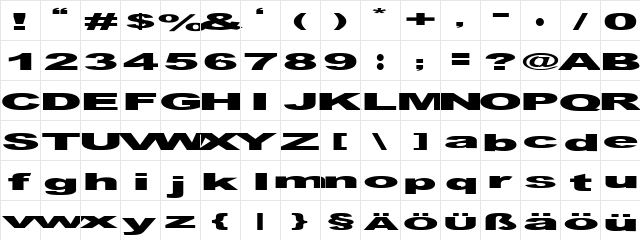
GF Vienna heavy Heavy
Design Context for GF Vienna heavy Typeface
GF Vienna heavy offers clean, dependable letterforms without strong stylistic allegiance, making it a practical choice for designers who need flexibility.
Pro Tip: Use GF Vienna heavy in both headline and body roles to test its range before committing to a single application.